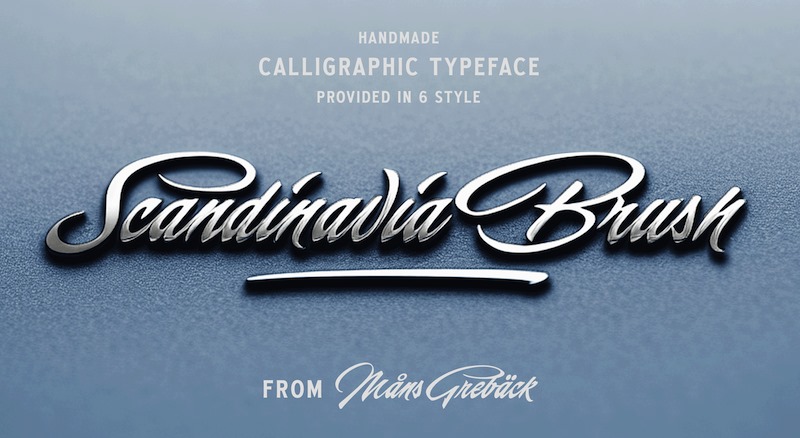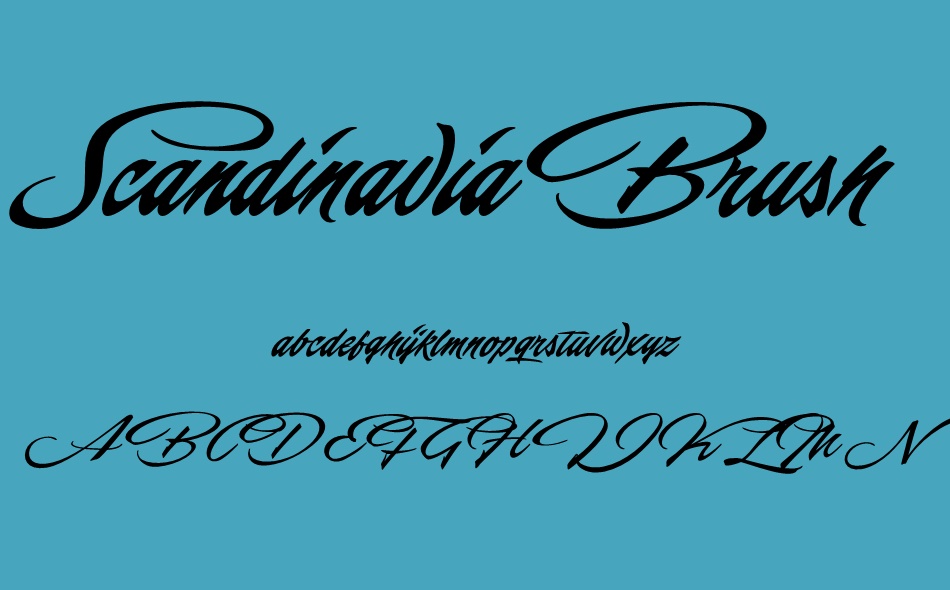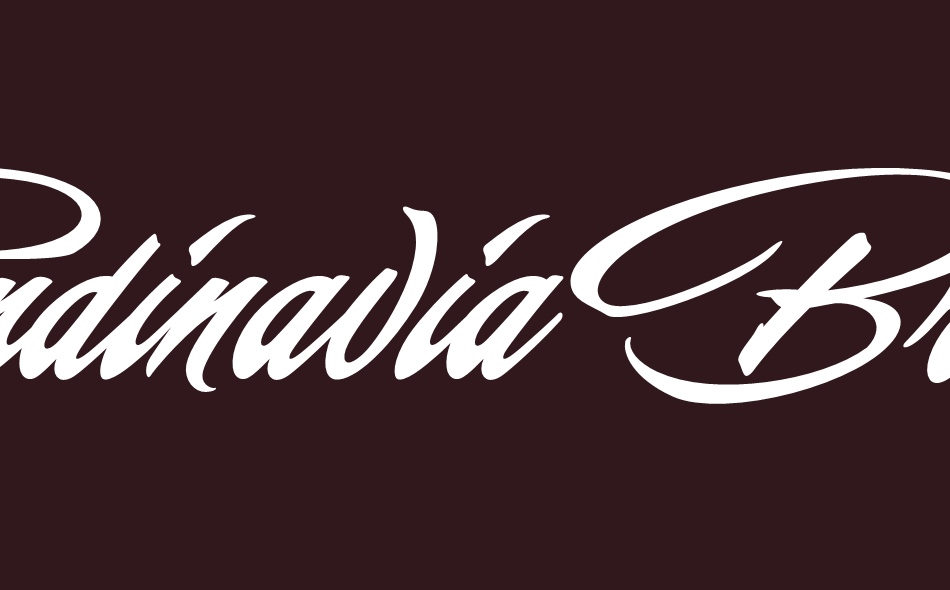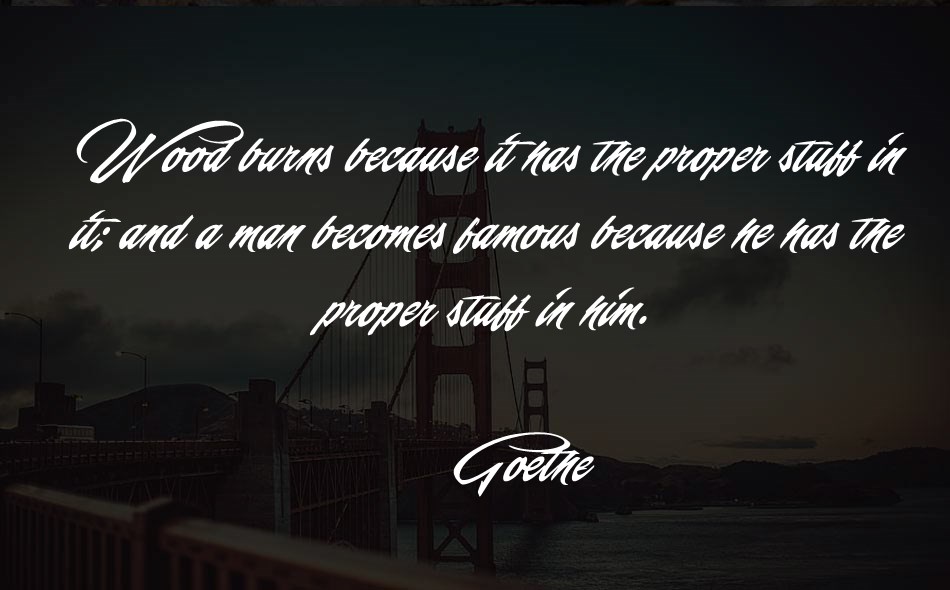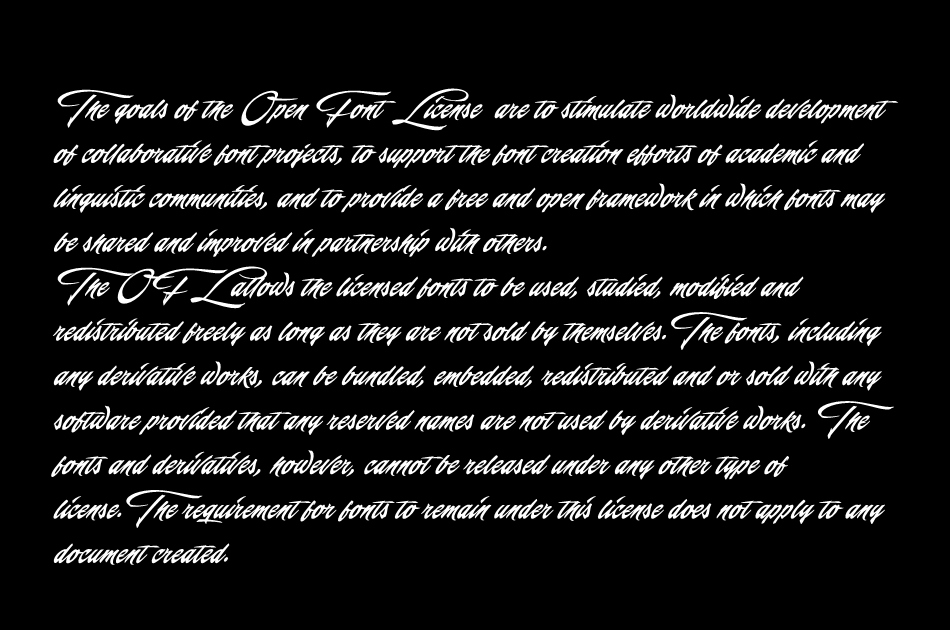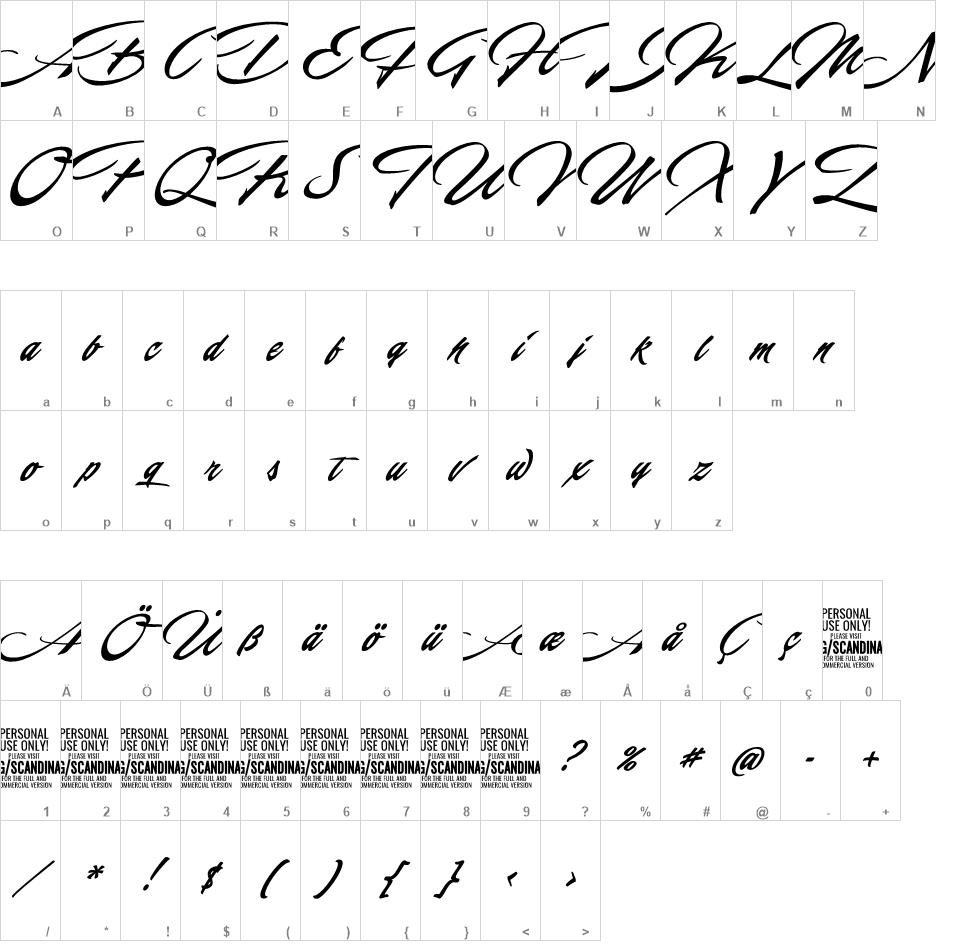
Scandinavia Brush font
Scandinavia Brush is a wild calligraphy font by Mans Greback, capturing the beautiful and rugged essence of Nordic nature.
Use underscores _ anywhere in a word to make an underline swash.
Example: Nord___ic Bru_sh
Scandinavia Brush is a wild calligraphy font by Mans Greback, inspired by the untamed beauty of Nordic nature. It captures a rugged essence, with each stroke reflecting the raw energy and grace of natural environments. This brush-painted typeface is perfect for logos, handwritten designs, and tattoo art with its active and streetwise feel.
Designed with a professional touch and high-quality craftsmanship, Scandinavia Brush comes in six versatile styles: Regular, Upright, Bold, Italic, and the combinations Bold Italic and Bold Upright. The range of styles allows you to create unique, expressive designs that capture the spirit of adventure, speed, and beauty.
Use underscores _ anywhere in a word to make an underline swash.
Example: Nord___ic Bru_sh
Ideal for designer and art projects, or high-end handcrafted products, Scandinavia Brush brings a bold, authentic, and captivating touch to your creative endeavors.
The font is built with advanced OpenType functionality and has a guaranteed top-notch quality, containing stylistic and contextual alternates, ligatures, and more features; all to give you full control and customizability. It has extensive lingual support, covering all Latin-based languages, from Northern Europe to South Africa, from America to South-East Asia. It contains all characters and symbols you'll ever need, including all punctuation and numbers.